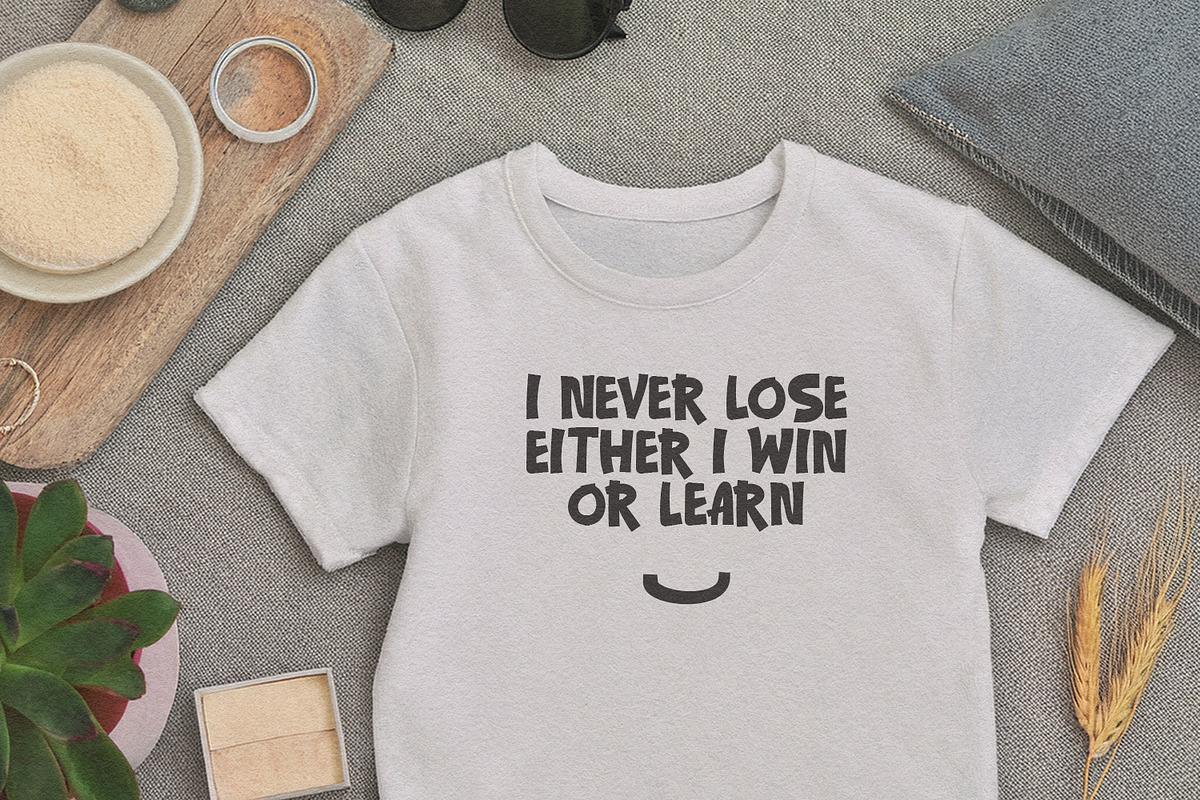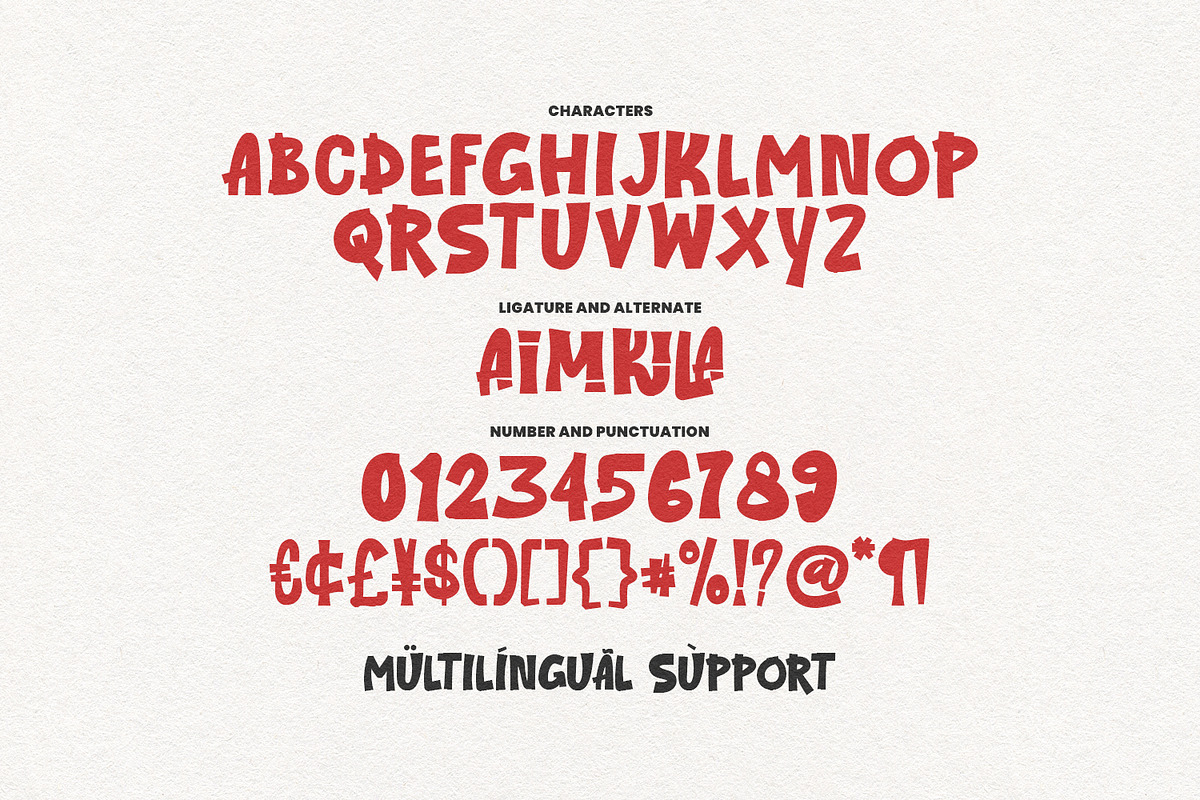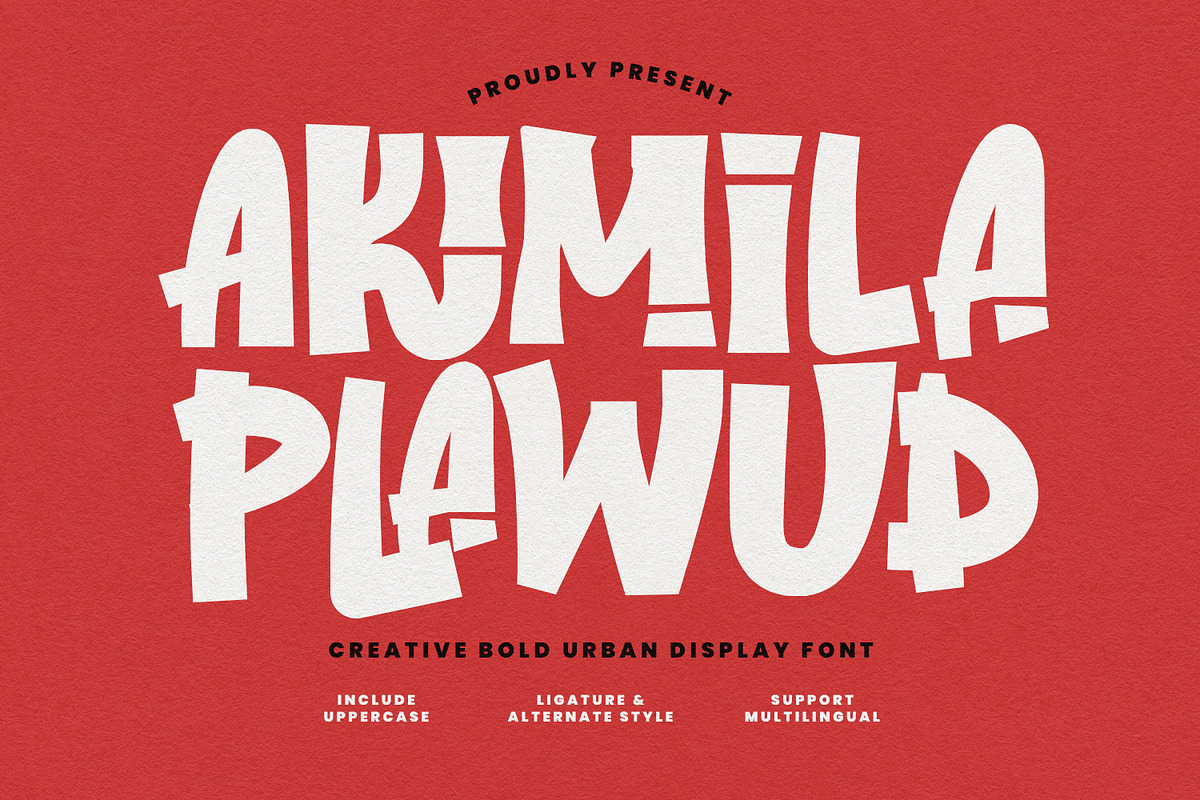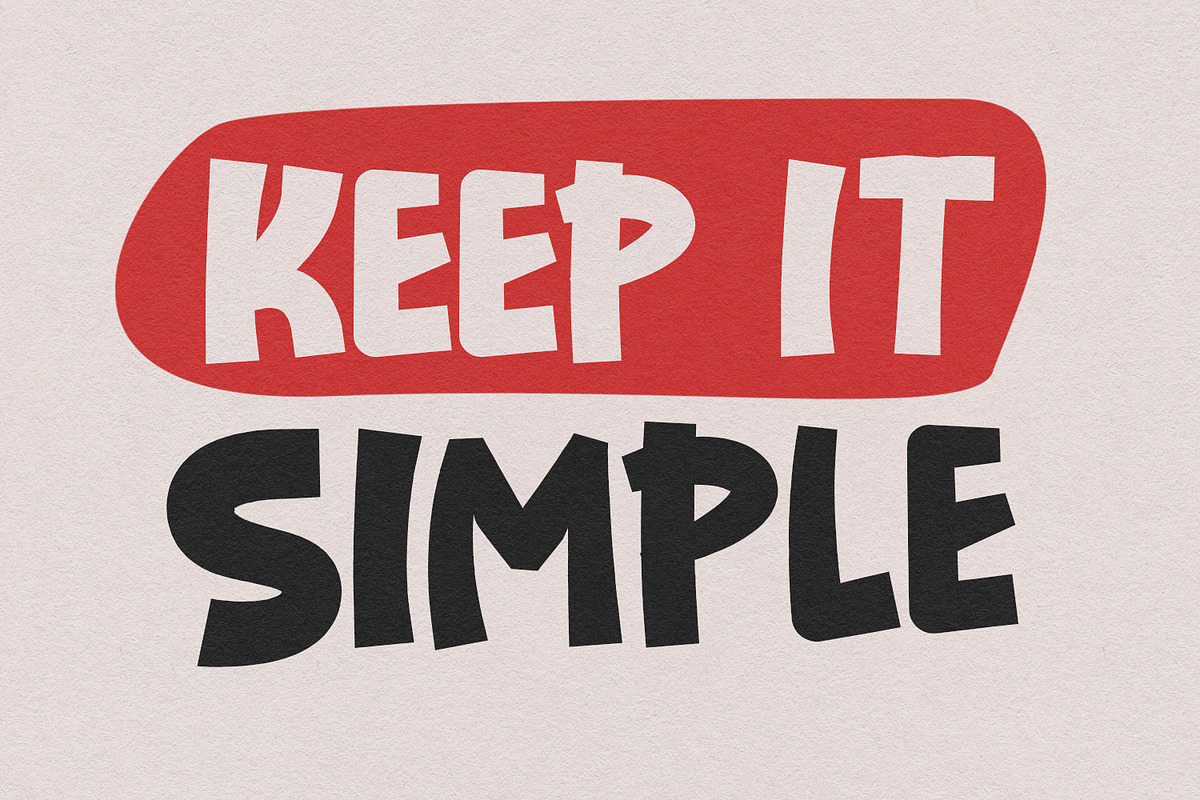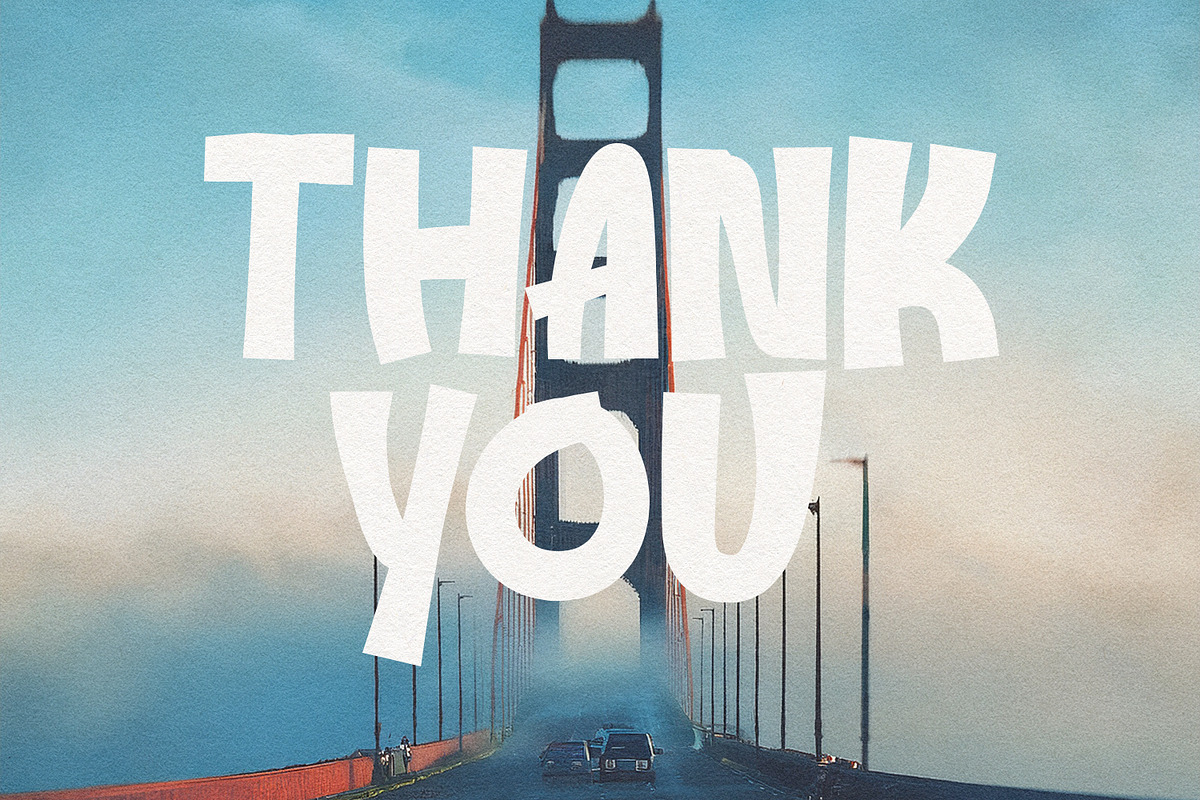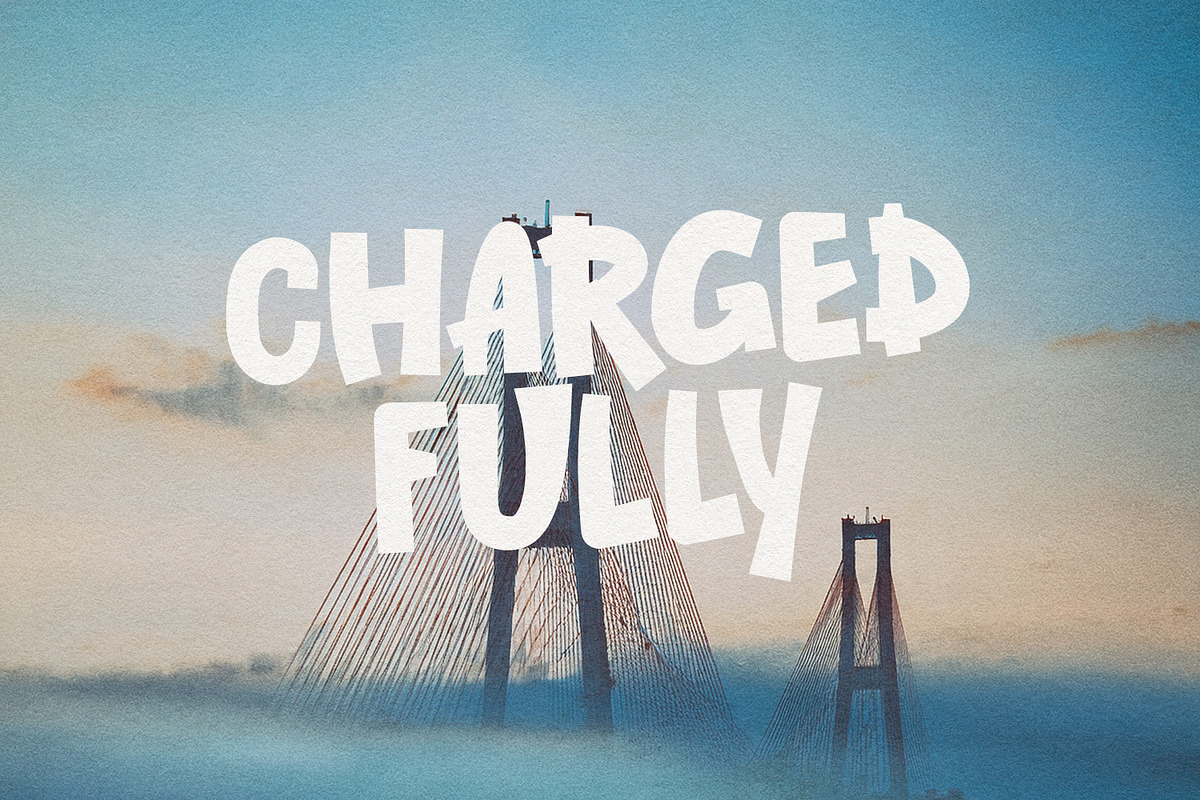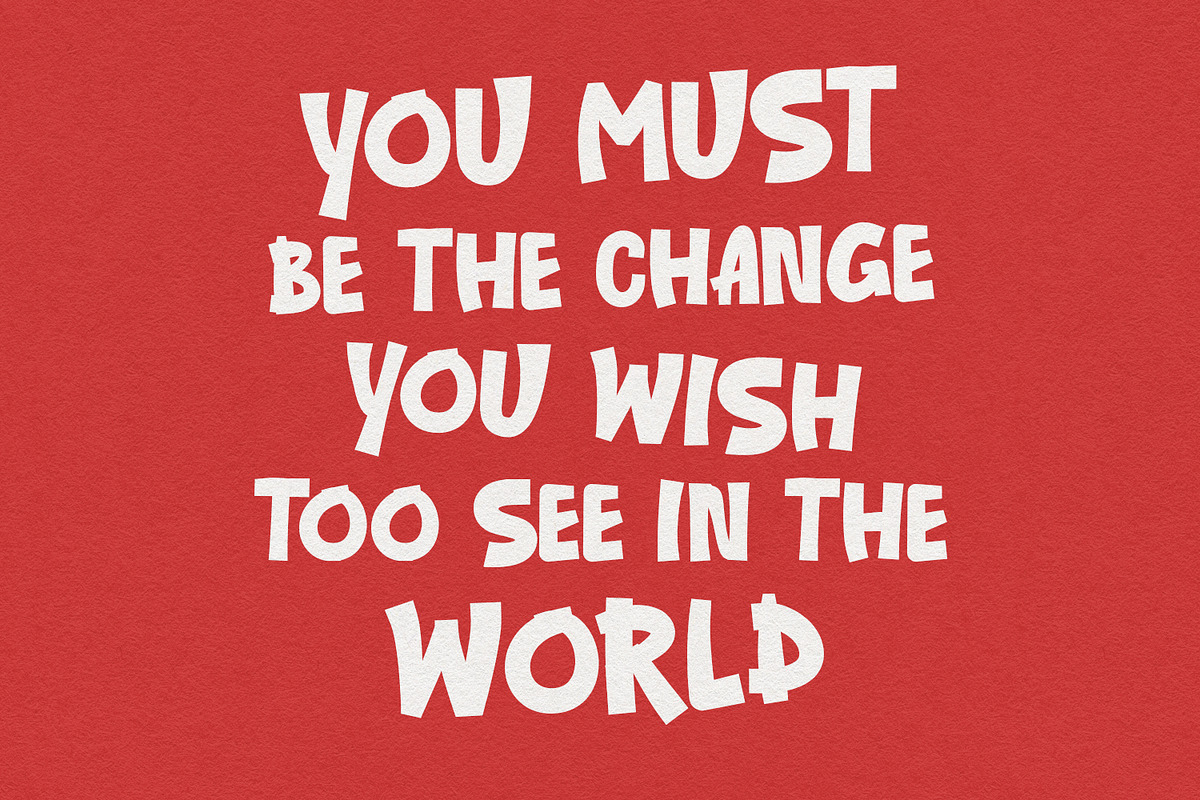
Akimila Plawud Bold Urban Display
Akimila Plawud is a creative bold display font featuring a heavy, hand-drawn aesthetic with irregular geometric shapes. Its thick strokes and playful letterforms create a high-impact visual presence, making it ideal for headlines, posters, and merchandise design. The font includes unique ligatures and alternate styles, offering versatile options for branding, social media graphics, and bold typographic compositions. Designed with a rebellious yet friendly energy, it provides multilingual support to ensure broad usability across various international design projects.
- Ligatures and Alternate for a natural handwriting flow